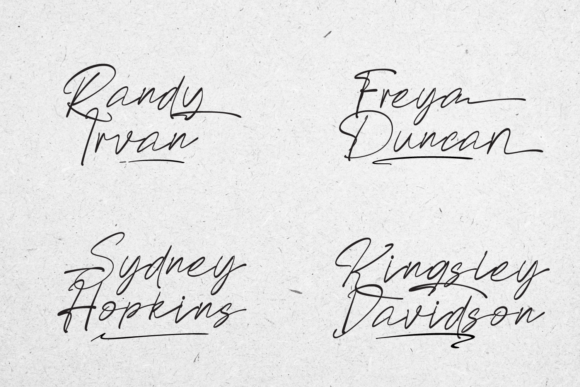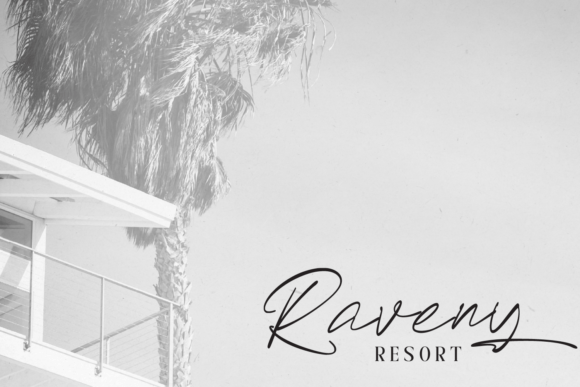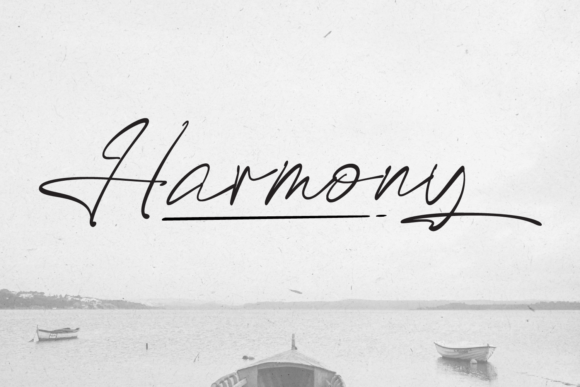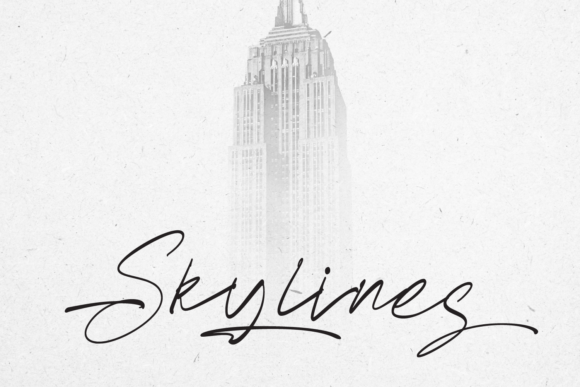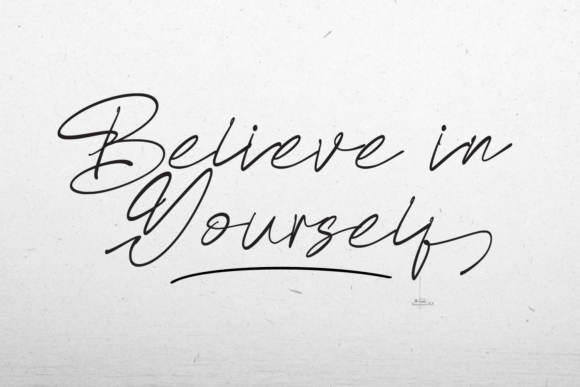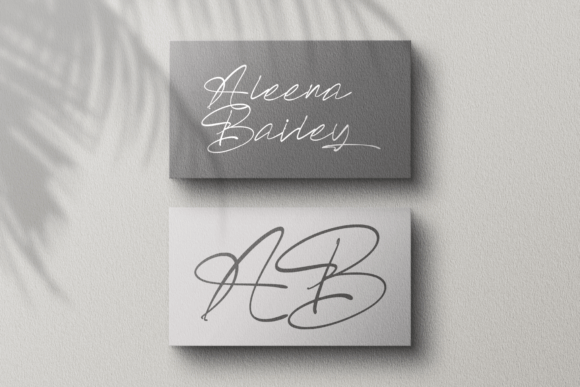
Introducing Fadegent Font: Elevate Your Designs with Elegance and Sophistication
In the world of typography, a well-crafted font can make all the difference in transforming a design from ordinary to extraordinary. For designers and crafters seeking to infuse their projects with a touch of luxury and refinement, Fadegent Font is an exceptional choice. This elegant signature style font is meticulously designed to bring a sense of effortless charm and sophistication to any design.
The Essence of Fadegent Font
Fadegent Font is characterized by its graceful strokes and refined curves, which collectively contribute to its luxurious aesthetic. The font’s design is carefully crafted to ensure that it adds a level of elegance and poise to various design elements, including logos, branding materials, and upscale projects. Whether you’re working on a high-end brand identity, an elegant wedding invitation, or a sophisticated advertising campaign, Fadegent Font is the perfect companion to help you achieve your creative vision.
Key Features of Fadegent Font
- Elegant Signature Style: Fadegent Font boasts a distinctive signature style that sets it apart from more conventional fonts. Its unique charm makes it ideal for designs that require a personal touch.
- Graceful Strokes and Refined Curves: The font’s design focuses on fluidity and grace, ensuring that every letterform contributes to a cohesive and luxurious look.
- PUA Encoded for Easy Access: Fadegent Font is PUA (Private Use Area) encoded, which means that accessing all the glyphs and ligatures is straightforward. This feature allows designers to explore the full creative potential of the font without any technical hassles.
- Versatility: While Fadegent Font excels in luxury and high-end designs, its versatility means it can also be used in a variety of other projects, from digital media to print materials.
Applications of Fadegent Font
The applications of Fadegent Font are vast and varied. Here are a few examples of how this elegant font can elevate your designs:
- Logos and Branding: Create a lasting impression with a logo that exudes elegance and sophistication. Fadegent Font is perfect for luxury brands, boutiques, and high-end service providers.
- Wedding and Event Invitations: Add a touch of class to your wedding invitations, event announcements, and other formal communications with Fadegent Font.
- Advertising and Marketing Materials: Stand out in the competitive world of advertising with elegant and refined marketing materials that showcase your brand’s attention to detail and commitment to quality.
- Packaging and Product Design: For luxury products, the packaging is just as important as the product itself. Fadegent Font can help create packaging that reflects the high quality of your product.
Tips for Using Fadegent Font Effectively
To make the most of Fadegent Font, consider the following tips:
- Pair with Complementary Fonts: While Fadegent Font is elegant on its own, pairing it with complementary fonts can enhance its beauty and create visual interest.
- Experiment with Colors: The right color choice can significantly impact the effectiveness of your design. Experiment with different colors to find the perfect match for Fadegent Font.
- Pay Attention to Spacing: Adequate spacing between letters and lines can ensure that Fadegent Font’s elegance shines through. Avoid overcrowding your design.
Fadegent Font is a remarkable addition to any designer’s toolkit. Its elegant signature style, graceful strokes, and refined curves make it the perfect choice for designers and crafters looking to add a touch of luxury and sophistication to their projects. With its PUA encoding for easy access to glyphs and ligatures, Fadegent Font is not only beautiful but also practical. Whether you’re working on a luxury brand identity, a wedding invitation, or any upscale project, Fadegent Font is sure to exceed your expectations and help you create designs that are truly unforgettable.